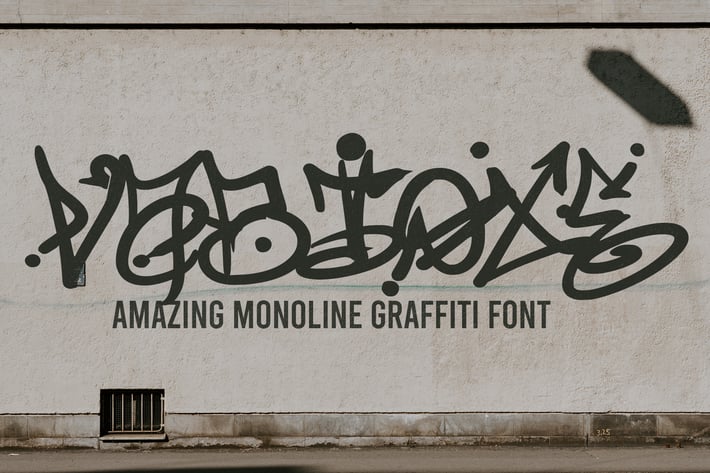
Vabioxe - Unique Graffiti Font
Vabioxe - Amazing Monoline Graffiti Font
This font was designed so that users can use it more easily and make graffiti designs easier. Vabioxe is very suitable for use in various media such as; packaging, logos, labels, posters, bulletins, typography, and many other media, especially with a graffiti looks.